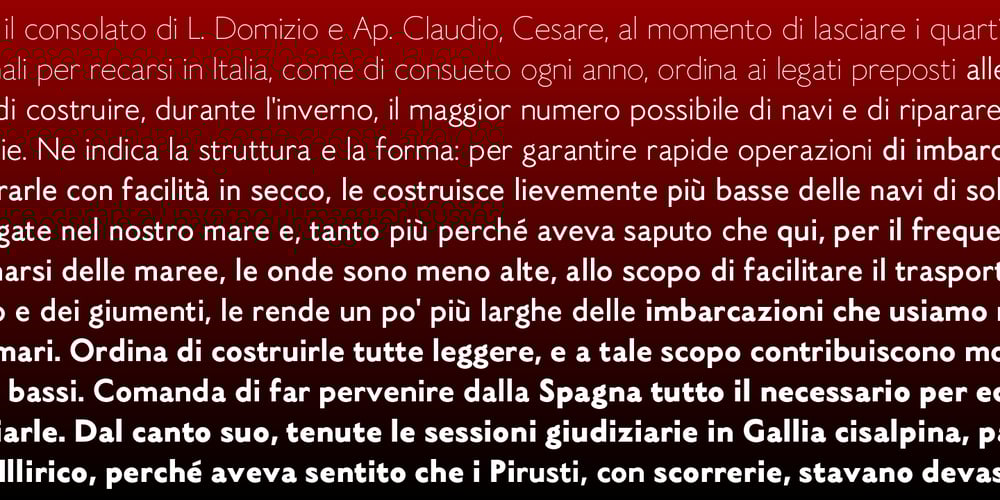
MTT Roma Font Family was designed by Mattia Bonanomi and published by MTT Type Firm. MTT Roma contains 12 styles and family package options. MTT Roma is designed to re-create the atmosphere of the city of Rome of the 21st century. The studio for the letterform evolved from the Trajan Column alphabet. Suitable for both display and body-text usage, stylistically MTT Roma aims to distance itself from the proliferation of geometric sans-serif families of its time. The result is a sharp, subtly humanist typeface inspired by modern day Rome, the city of contrasts and eternal beauty. Featuring an extended character set to support Central and Eastern European as well as Western European languages, the typeface comes with six weights – from thin to black — with matching italics.